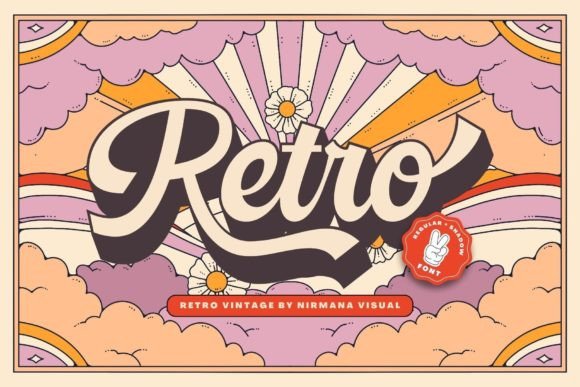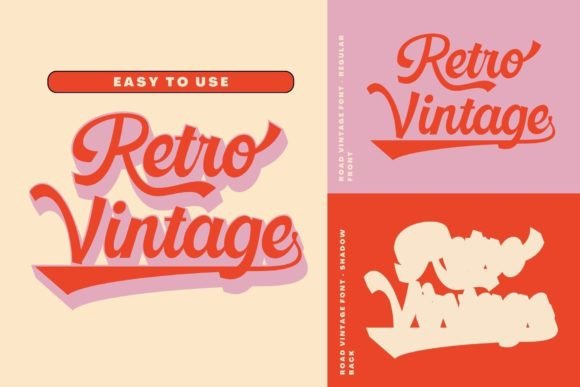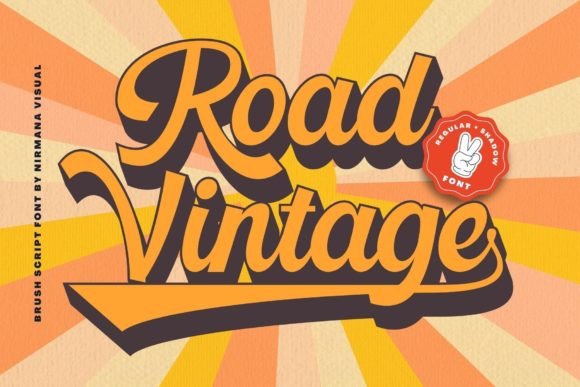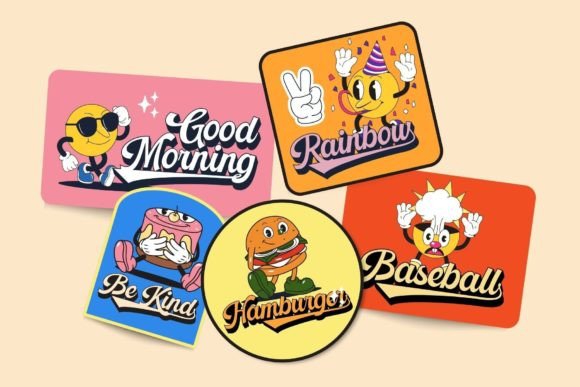
Retro Vintage Font
About the Retro Vintage Font
Make a bold statement with Retro Vintage Font, a powerful and memorable font. Retro Vintage, Inspired by 70s Design Era
Retro Vintage offers beautiful typographic harmony for a diversity of design projects, including logos & branding, social media posts, advertisements & product designs.
This font excels in headlines, short text blocks, and logos where its retro charm can make a strong visual statement. It’s ideal for projects evoking nostalgia, such as vintage clothing brands, record labels, or retro-themed events. However, its condensed letterforms and decorative elements make it less suitable for body text or lengthy paragraphs, impacting readability.
Retro Vintage’s personality is bold and playful, yet maintains a degree of sophistication. It projects a fun, confident image.
Pairing it with a clean sans-serif like Open Sans for body copy or a more modern geometric sans-serif like Montserrat for supporting text creates a balanced, visually appealing contrast. For a more luxurious feel, consider pairing it with a subtle serif like Garamond.